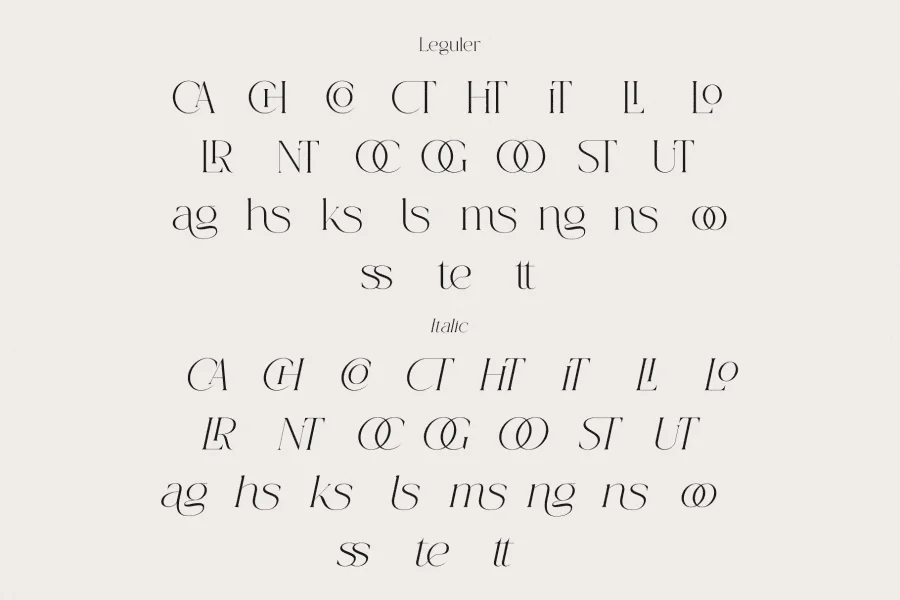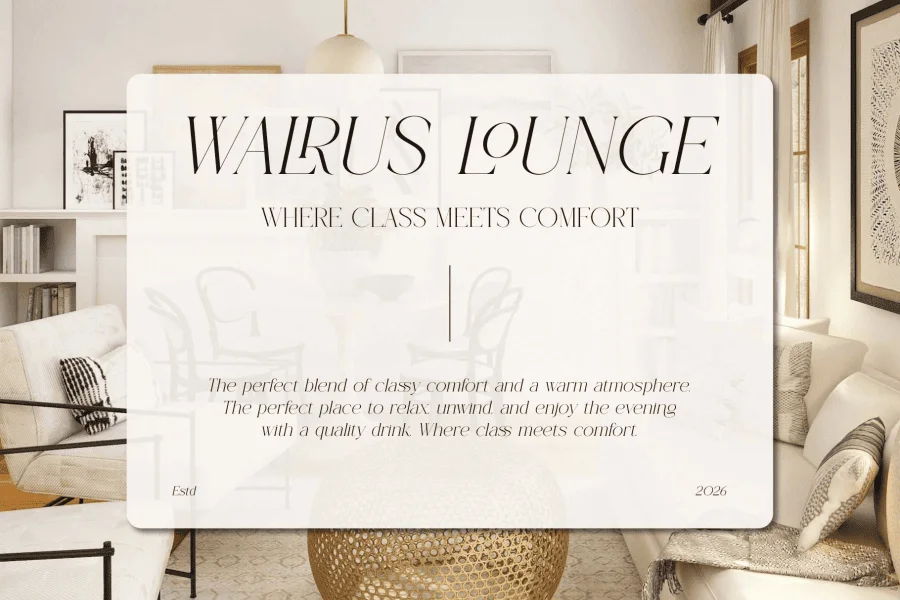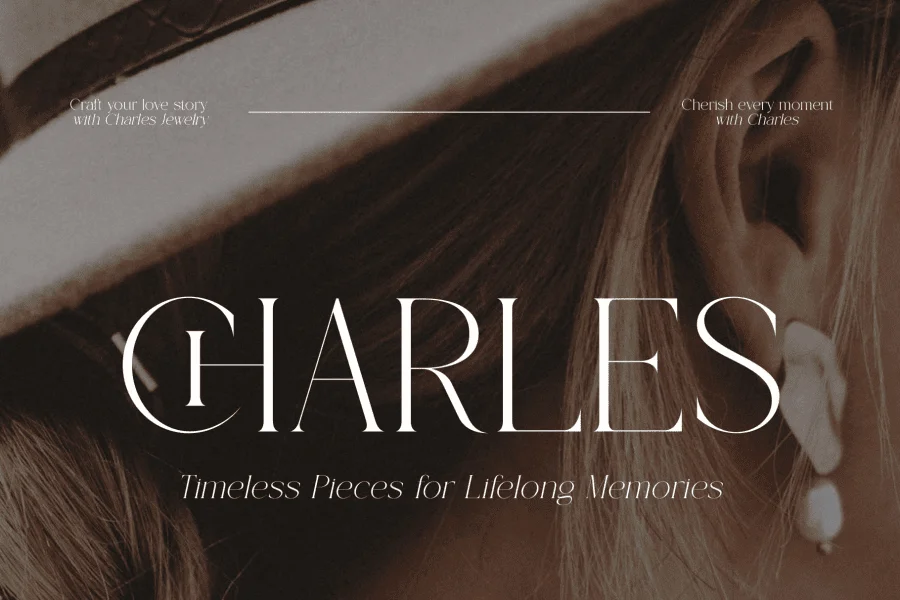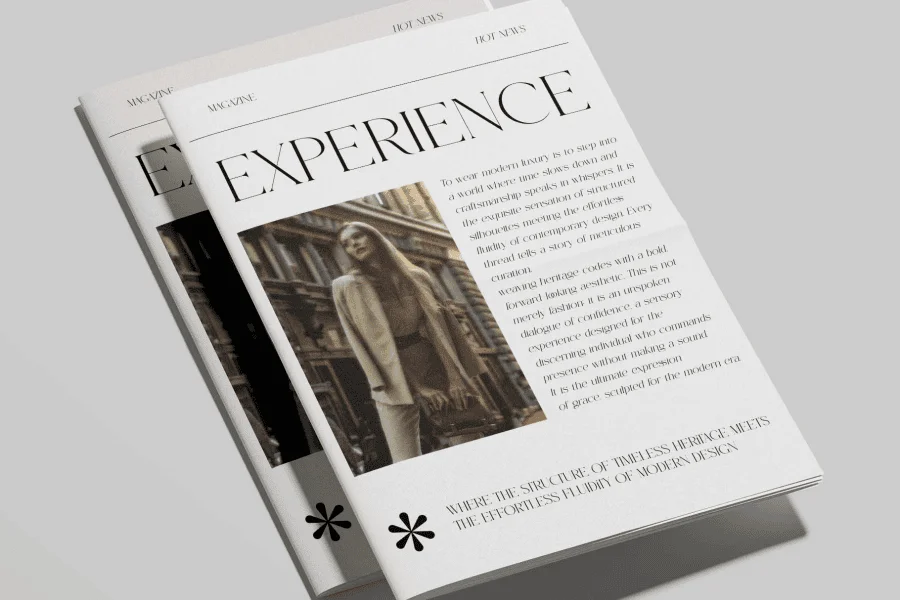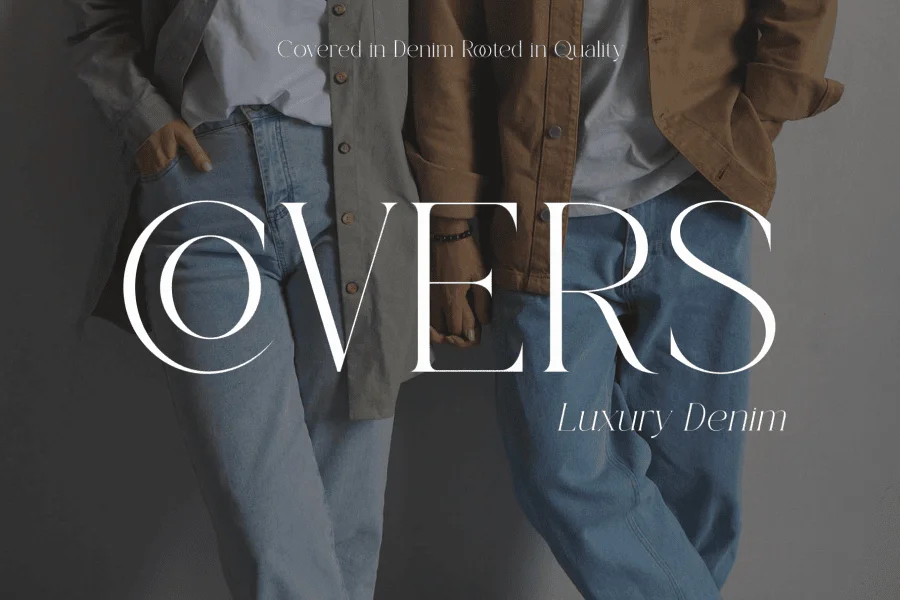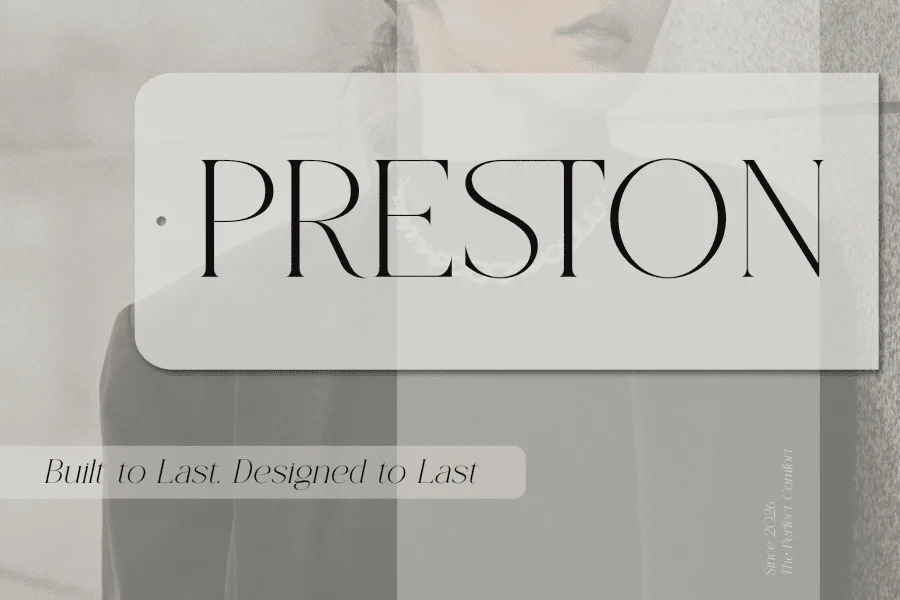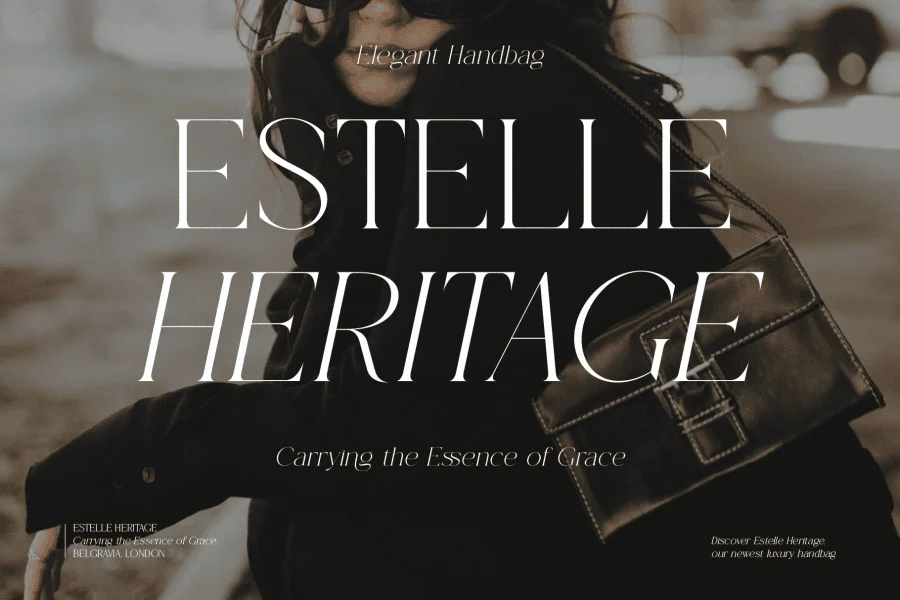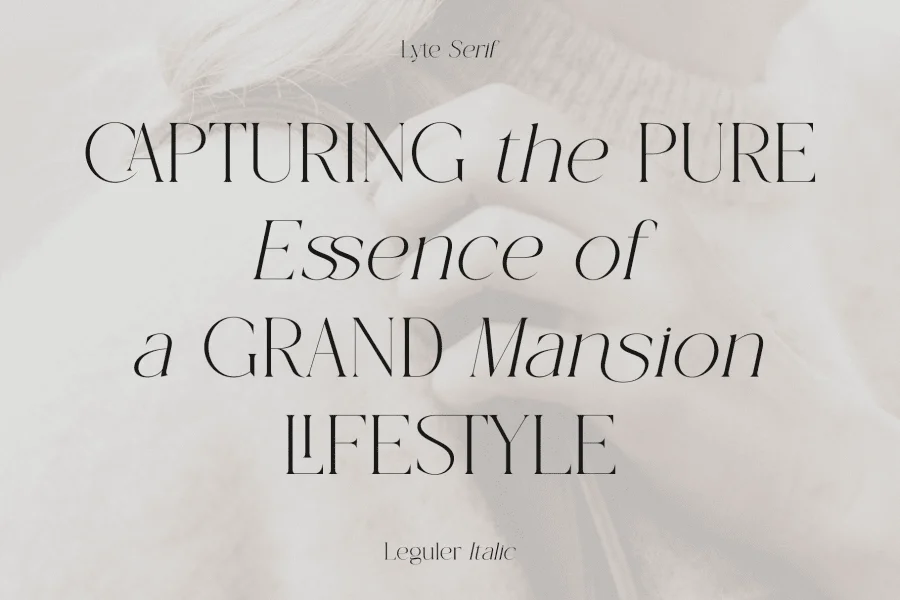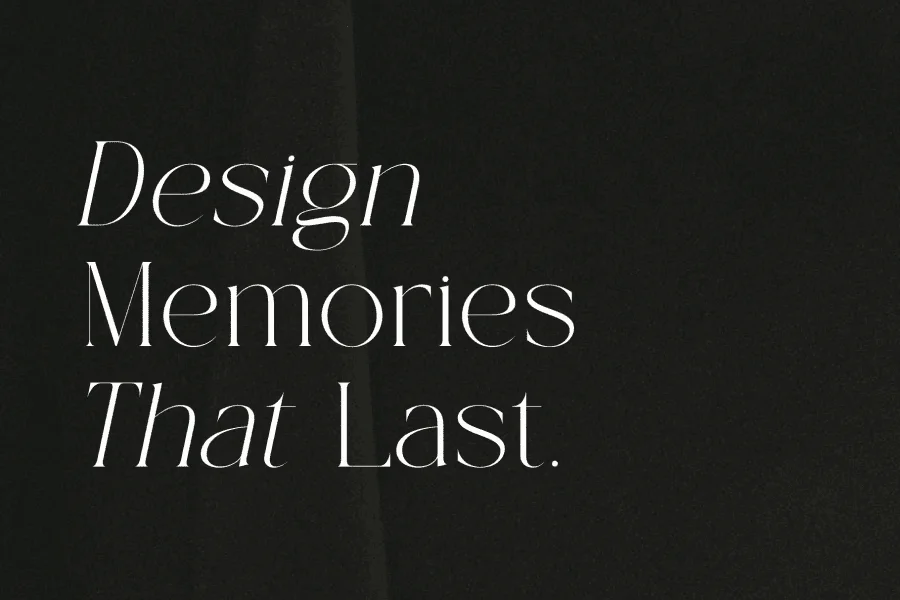
Lyte Serif is a high-contrast serif display typeface that balances delicate, razor-thin horizontal strokes with structured vertical stems. Its anatomy features sharp, needle-like serifs and open, sweeping curves that lend an airy, architectural elegance to the letterforms. The typeface exhibits a dramatic stroke contrast, creating a sophisticated texture that feels both classic and contemporary. In its italic styling, the characters adopt a fluid, calligraphic posture with sweeping entry and exit strokes, enhancing its graceful, rhythmic cadence.
This typeface is tailored for high-end editorial layouts, luxury branding, and sophisticated identity systems. It excels in large-format display applications such as fashion magazine mastheads, premium cosmetics packaging, and minimalist lifestyle lookbooks. Whether used in its upright Roman form for structured, authoritative headers or its expressive italic style for poetic subheadings, it brings a refined, couture-like sensibility to modern design projects.